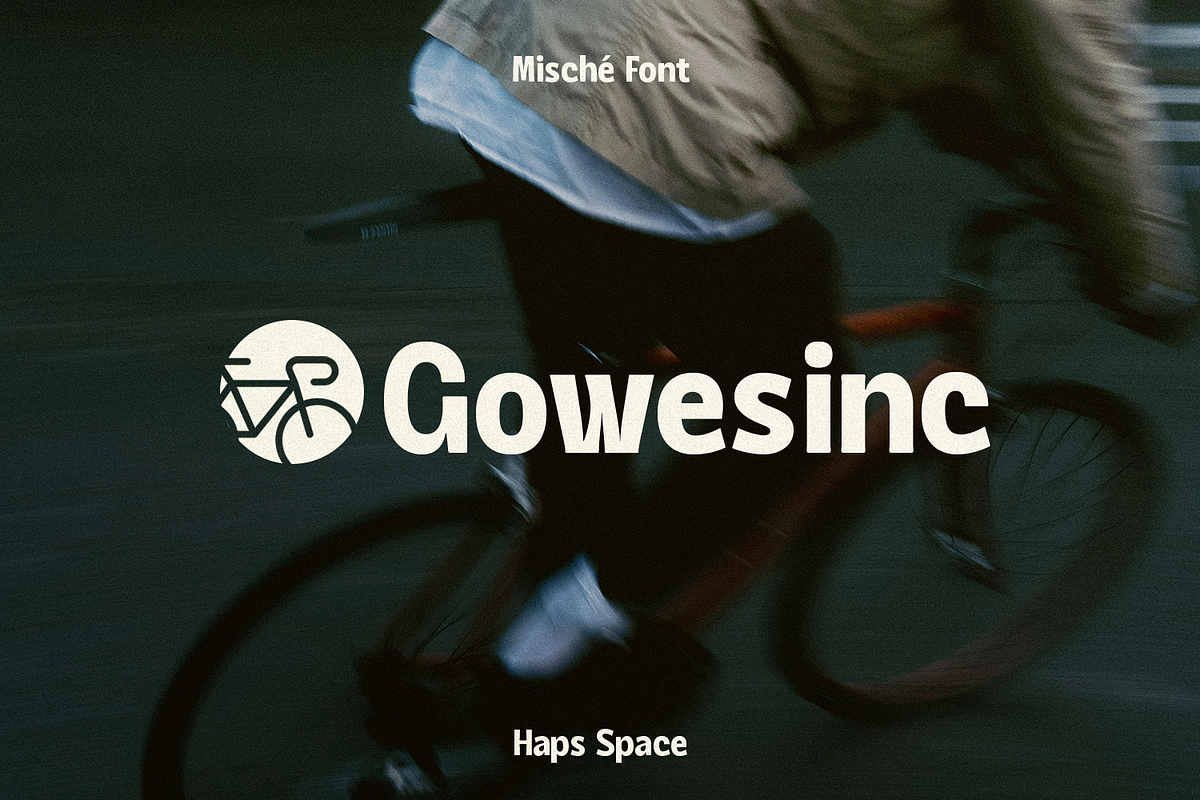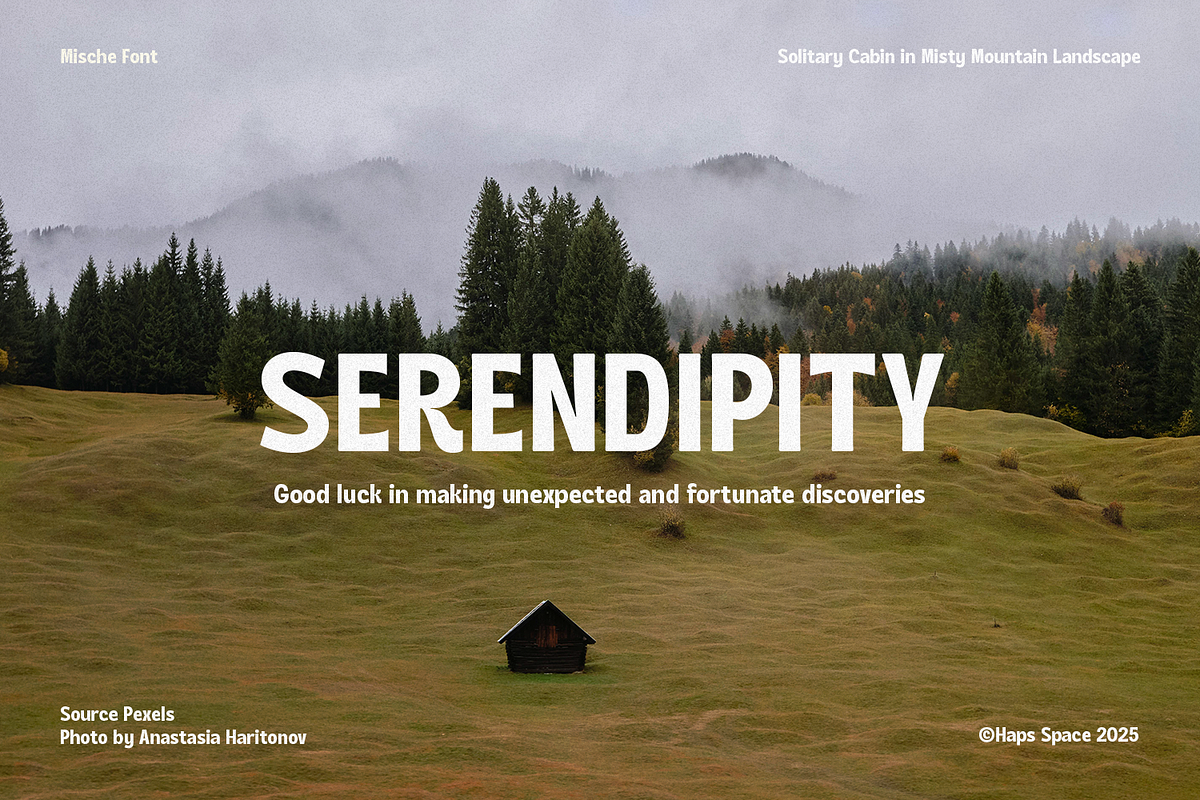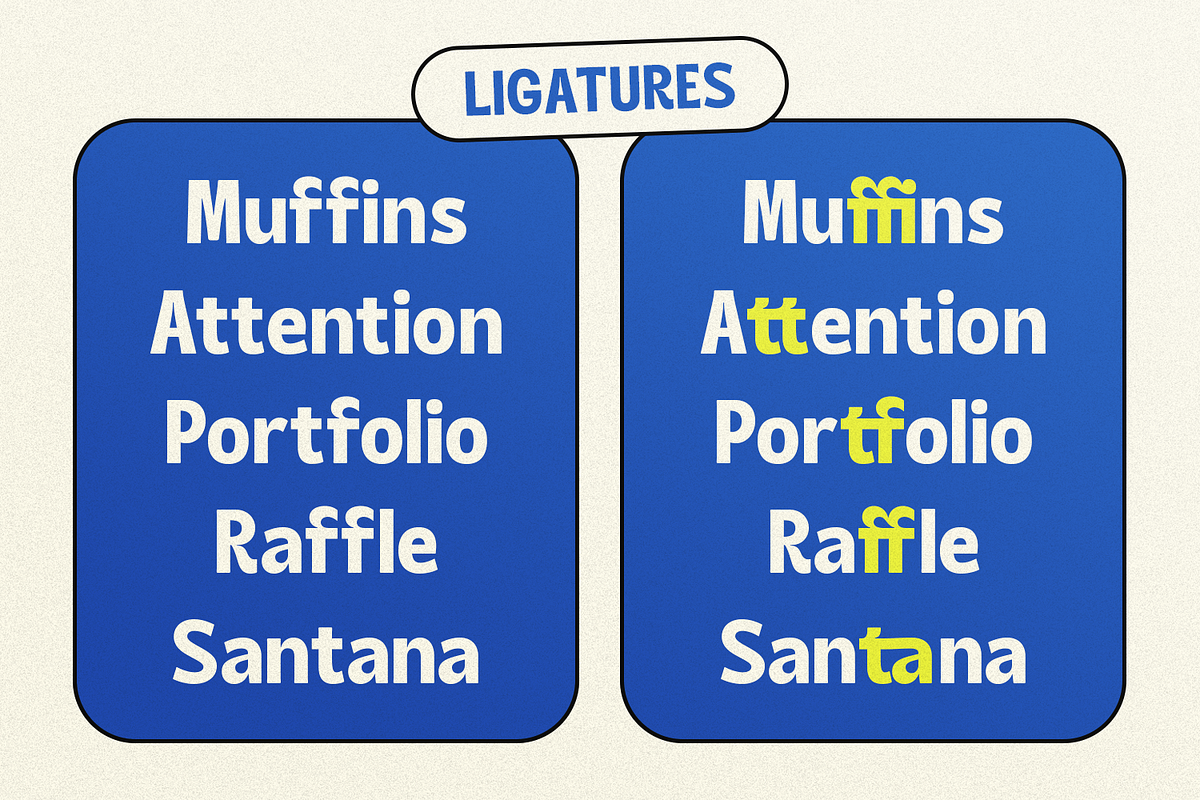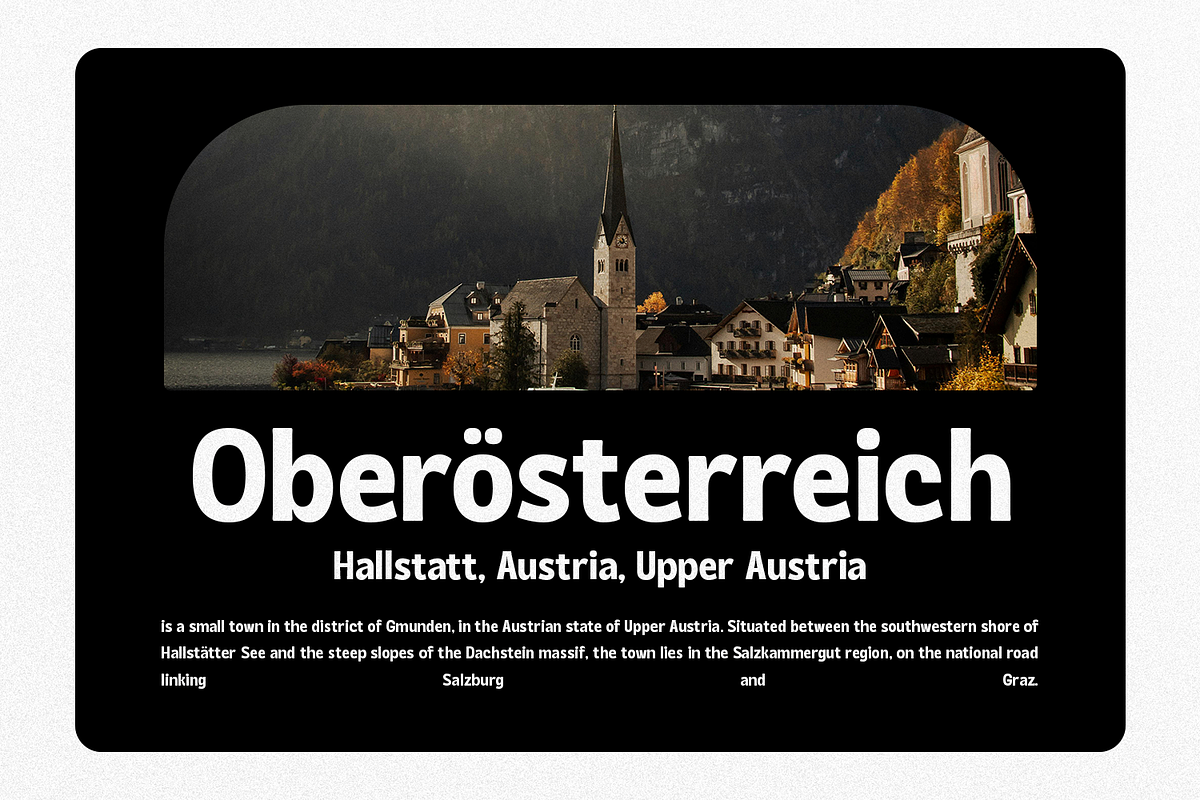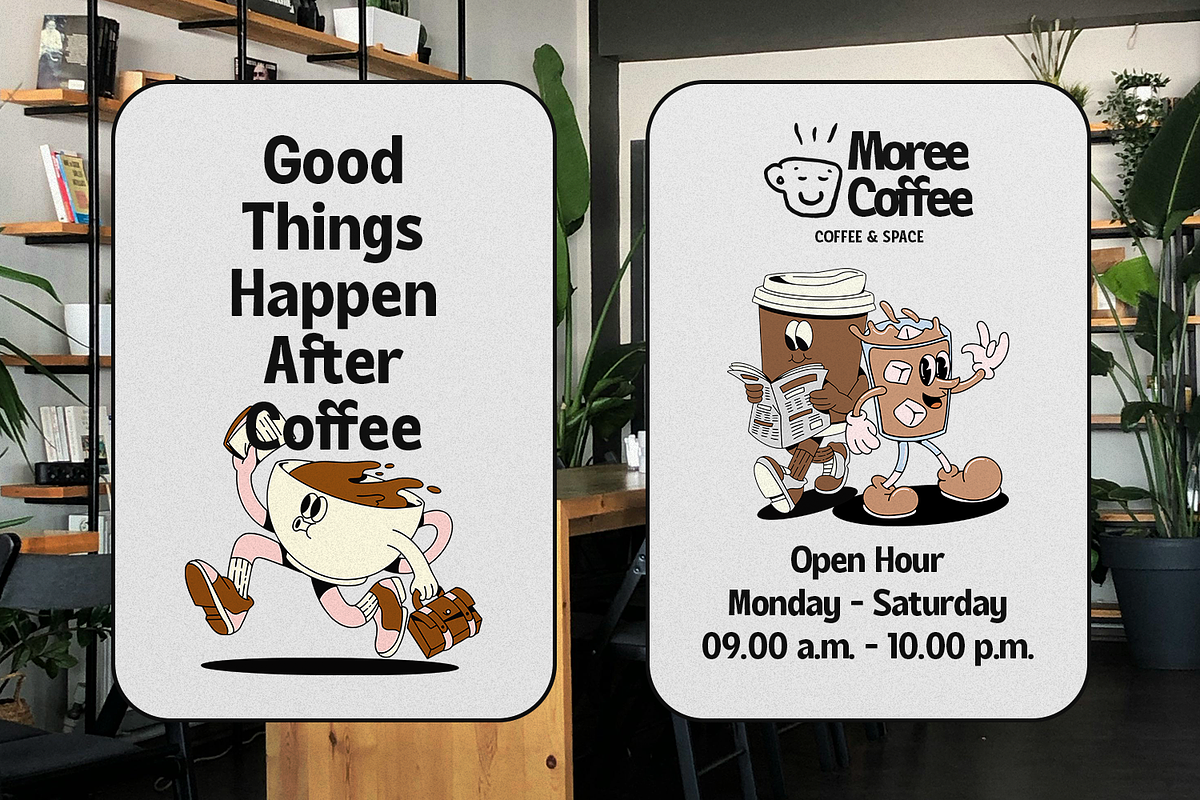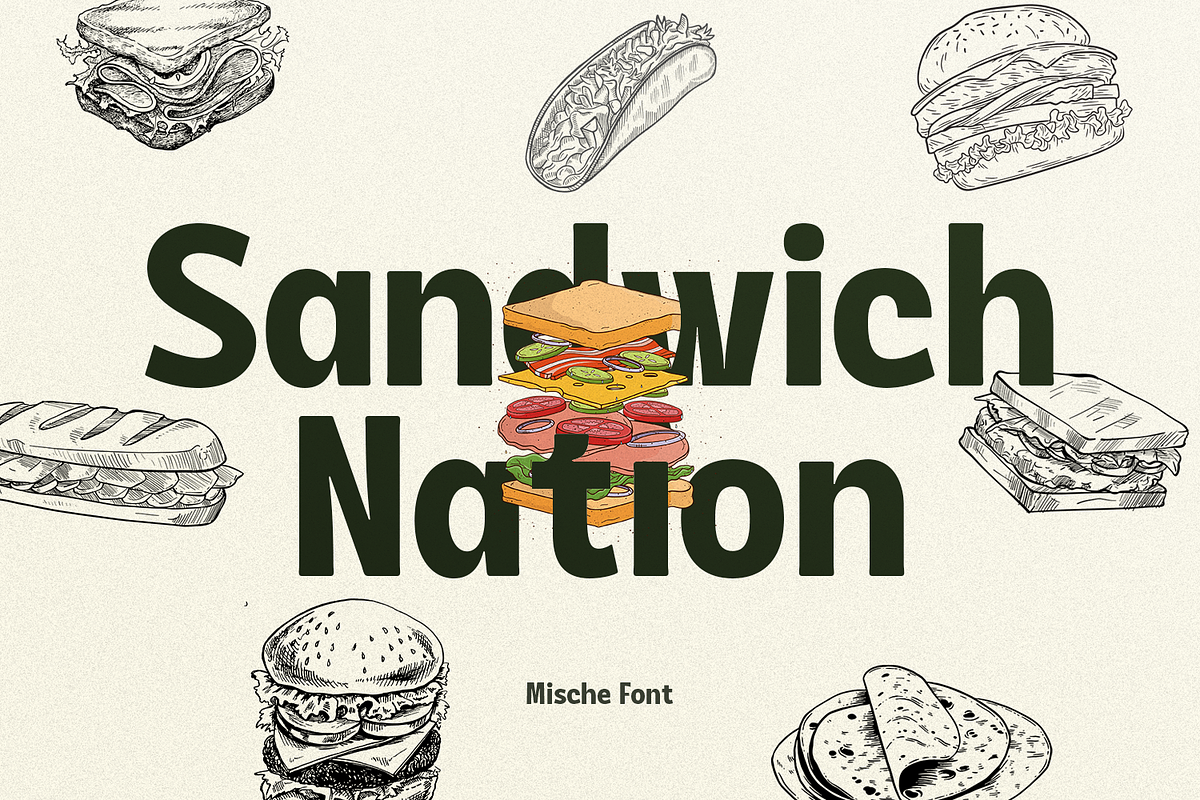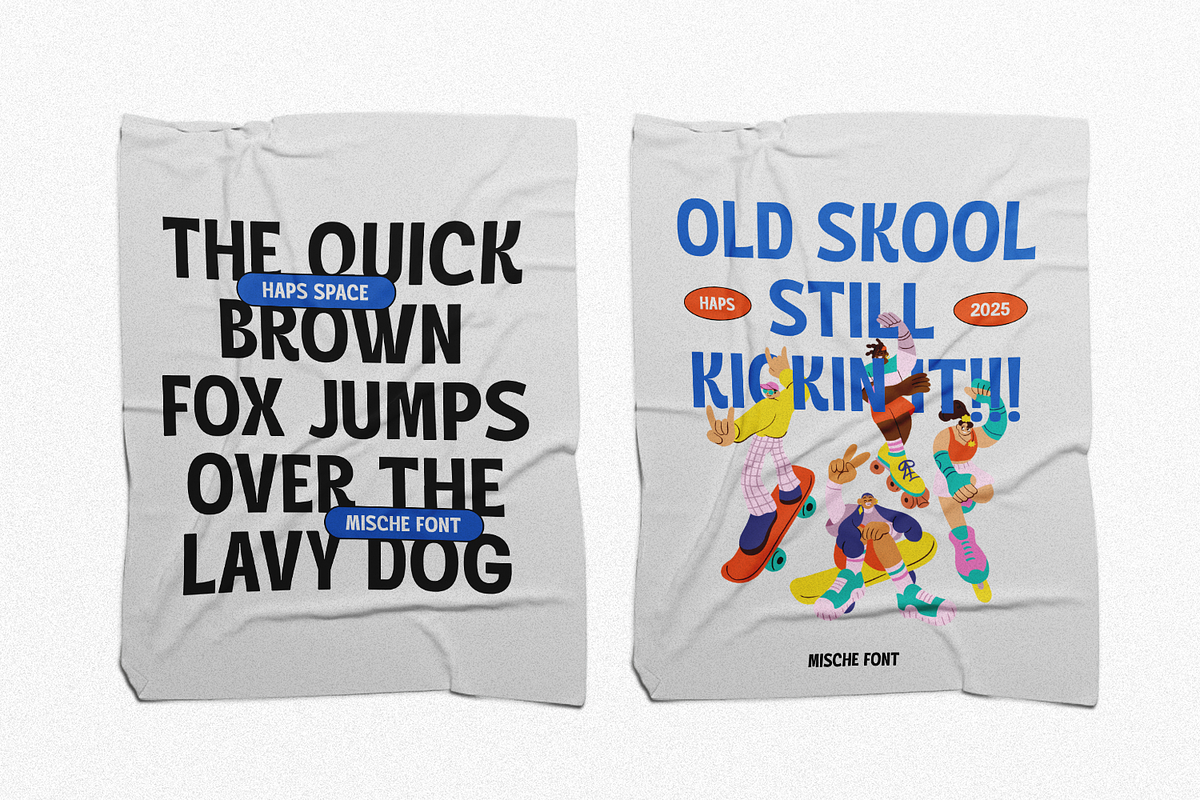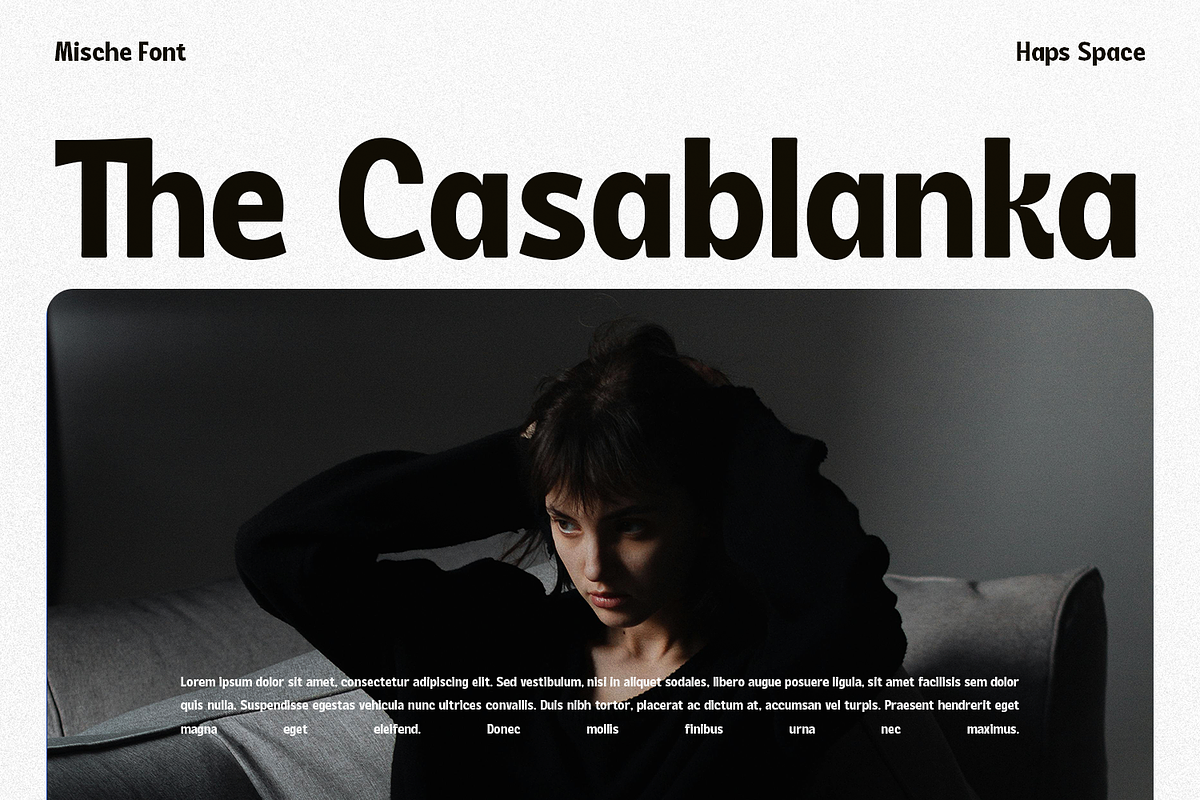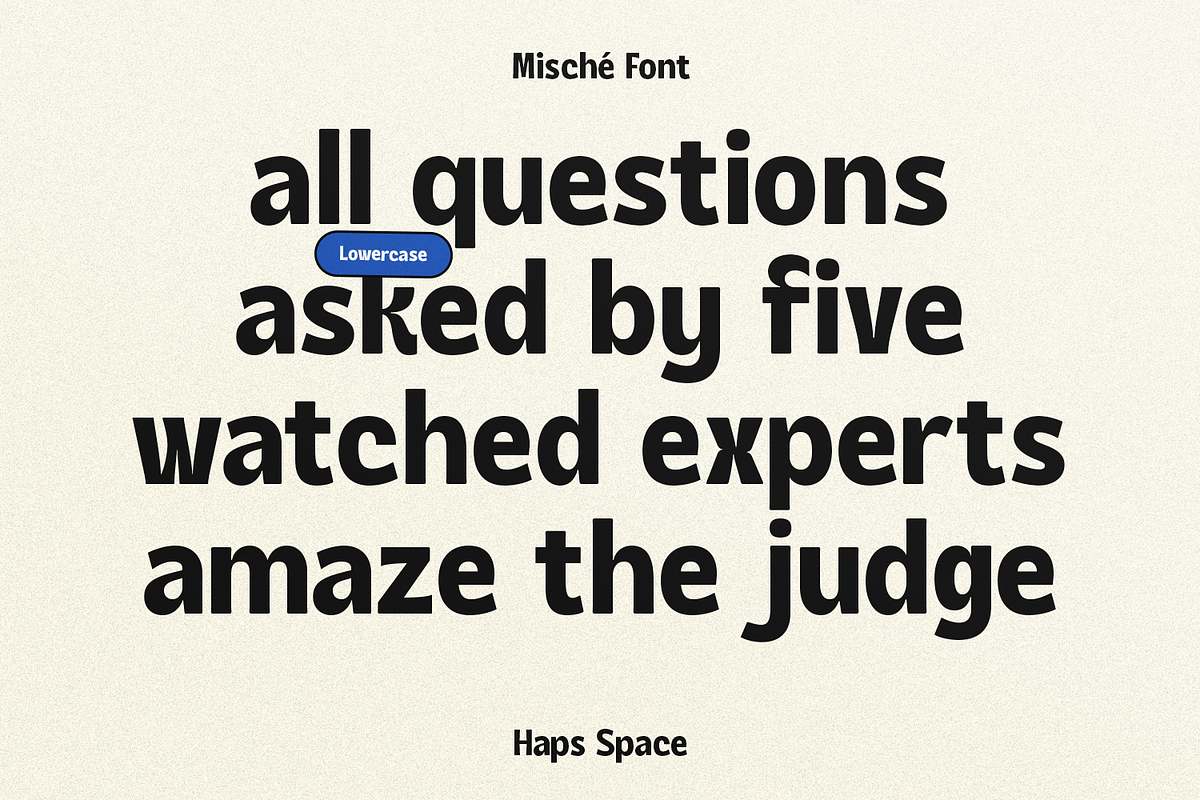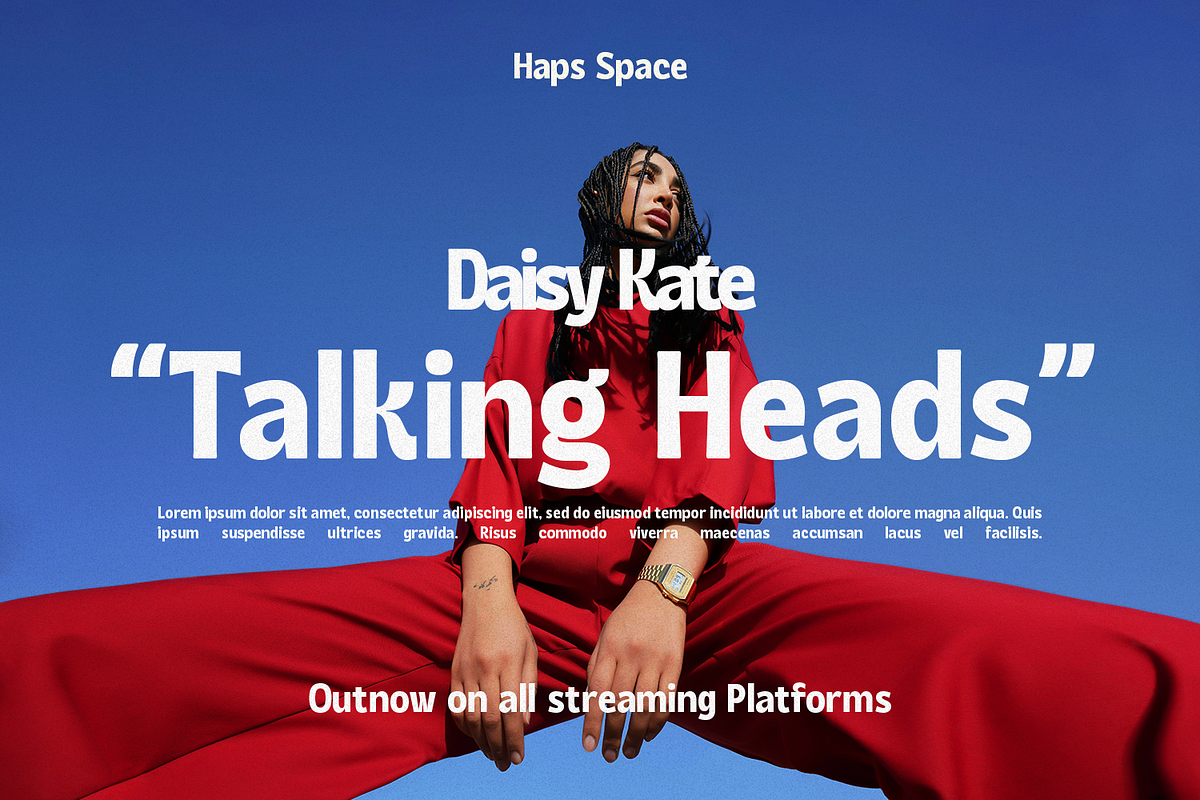
HS Mische - Retro Display Font
HS Mische - Retro Display Font is a Playful Sans-Serif comes with alternatives and ligatures, helps to create stunning Posters, Branding, Tshirt, Social Media Graphics and much more.